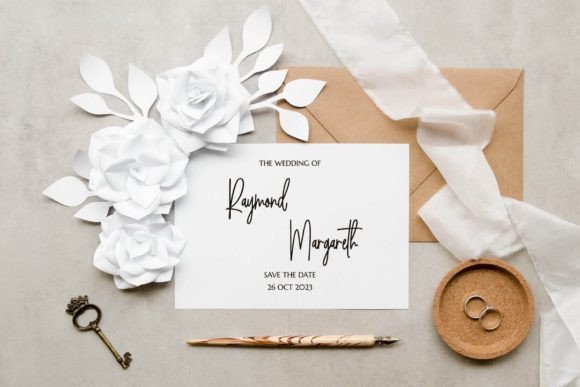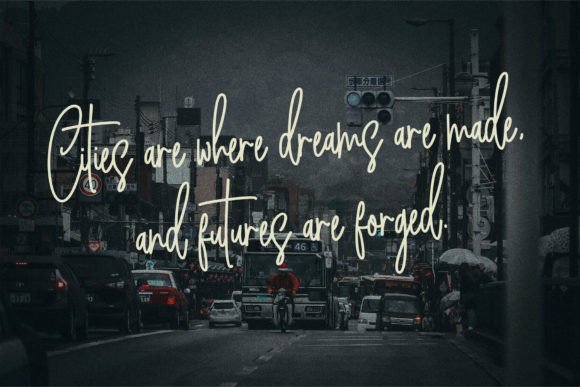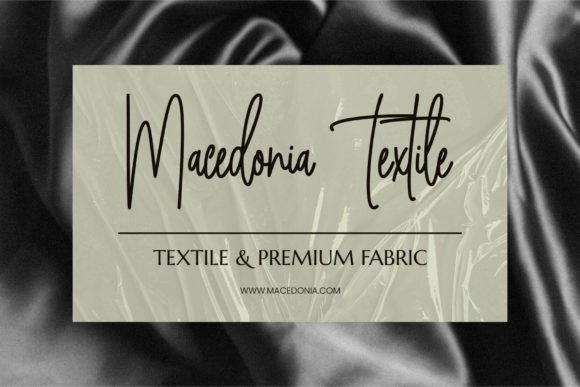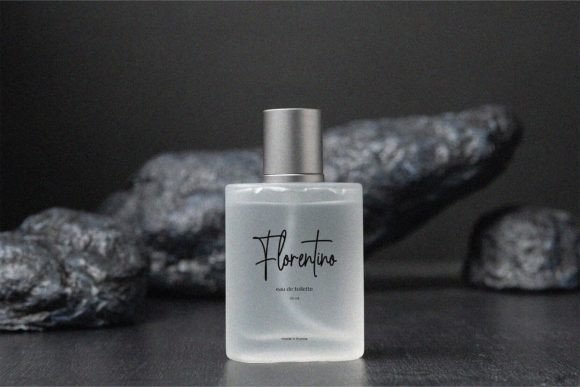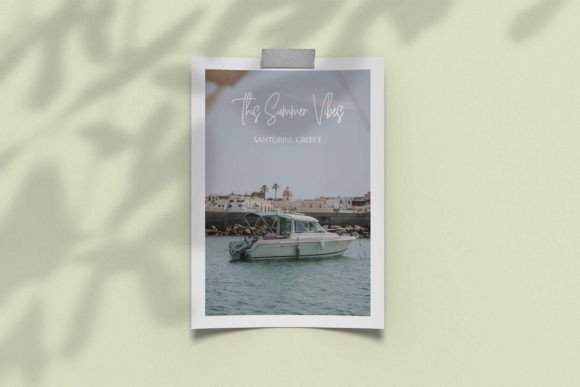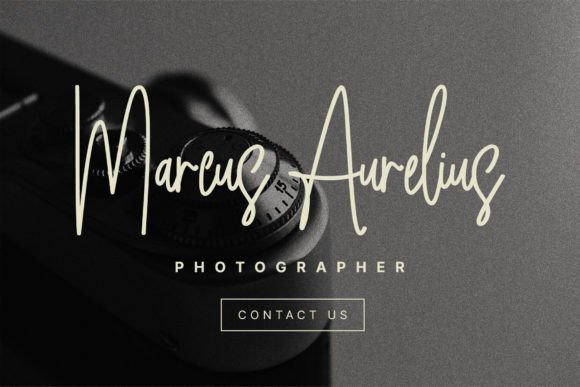
Greet Sweet Font: Elevate Your Designs with a Modern Handwriting Script
In the world of typography, a good font can make all the difference in the success of a design project. For designers and crafters looking for a unique and captivating typeface, Greet Sweet – Modern Handwriting Script Font is an excellent choice. This beautiful font combines the warmth of handwritten script with a modern aesthetic, making it perfect for a wide range of creative projects.
The Charm of Greet Sweet
Greet Sweet is a meticulously crafted font that exudes a playful elegance. Its fluid strokes and graceful curves give it a distinctive and artistic flair, adding a touch of sophistication to any design. The font’s versatility shines through in its ability to adapt seamlessly to various contexts, be it for invitations, branding, advertising, or social media content.
Key Features of Greet Sweet
• Modern Handwriting Style: Greet Sweet boasts a contemporary handwriting style that adds a personal touch to any design, creating a connection with the audience and leaving a lasting impression.
• Legibility and Readability: Designed with precision and attention to detail, Greet Sweet ensures legibility while maintaining a distinctive and artistic flair.
• Versatility: This font is suitable for a wide range of creative projects, including invitations, branding, advertising, social media content, and more.
• Elegance and Sophistication: Greet Sweet’s fluid strokes and graceful curves give it a playful elegance that adds a touch of sophistication to any design.
Why Choose Greet Sweet?
With so many fonts available, why choose Greet Sweet? Here are a few compelling reasons:
• Unique and Eye-Catching: Greet Sweet stands out as a unique and eye-catching font that will elevate your designs and make them more engaging.
• Easy to Read: Despite its artistic flair, Greet Sweet remains easy to read, making it perfect for body text and headlines.
• Customizable: This font is highly customizable, allowing you to adjust the size, color, and style to fit your design needs.
Using Greet Sweet in Your Designs
Greet Sweet is an incredibly versatile font that can be used in a variety of design contexts. Here are a few ideas to get you started:
• Invitations and Event Materials: Use Greet Sweet to create beautiful invitations, wedding cards, and event materials that exude elegance and sophistication.
• Branding and Packaging: This font is perfect for branding and packaging designs that require a touch of personality and whimsy.
• Social Media Content: Use Greet Sweet to create engaging social media content that stands out from the crowd.
Tips and Tricks for Working with Greet Sweet
To get the most out of Greet Sweet, here are a few tips and tricks to keep in mind:
• Experiment with Font Sizes: Don’t be afraid to experiment with different font sizes to create visual interest and hierarchy in your designs.
• Play with Color: Greet Sweet looks great in a variety of colors, so don’t be afraid to get creative and try out different color combinations.
• Mix and Match with Other Fonts: This font pairs well with a variety of other fonts, so feel free to experiment with different combinations to find the perfect look for your design.
Greet Sweet – Modern Handwriting Script Font is a beautiful and versatile typeface that is perfect for designers and crafters looking to elevate their designs. With its unique blend of modern handwriting style and elegance, this font is sure to make a lasting impression. Whether used in print or digital media, Greet Sweet stands out as a unique and eye-catching font that will take your designs to the next level.